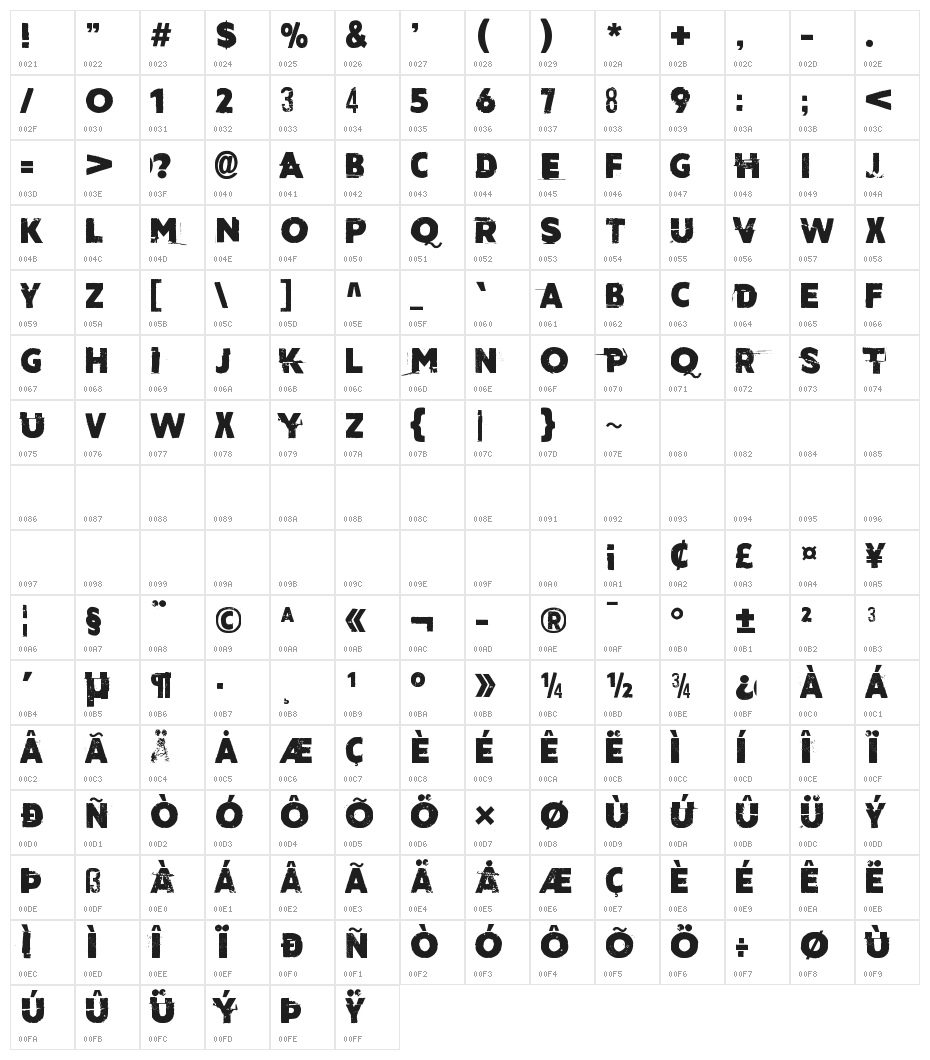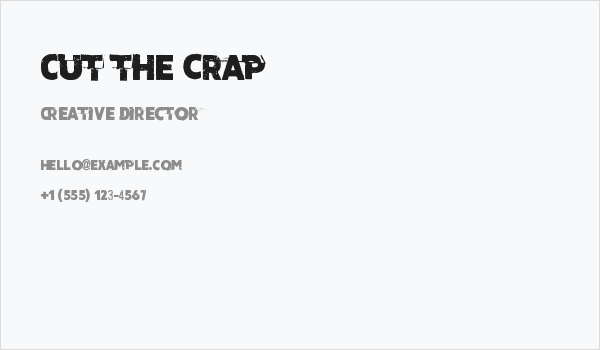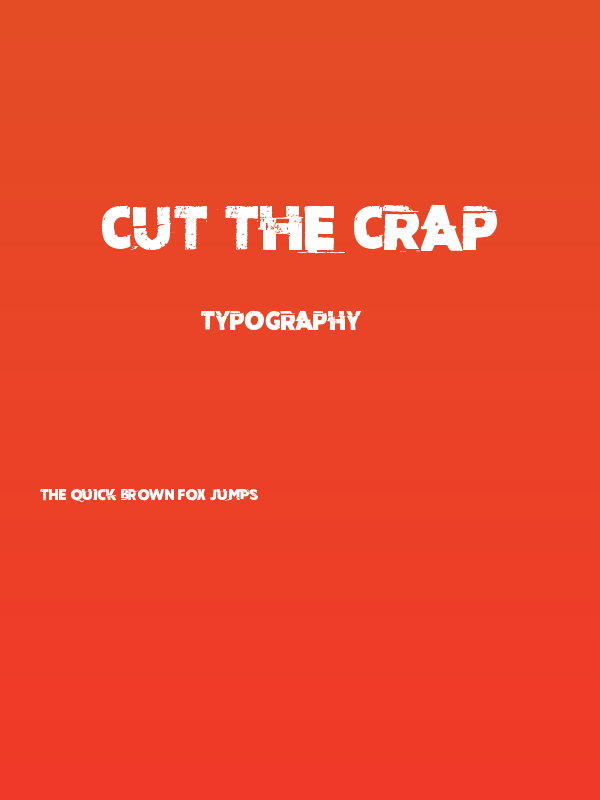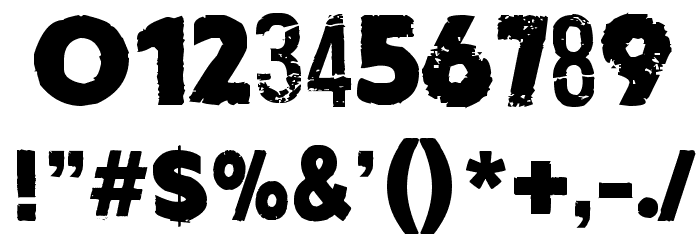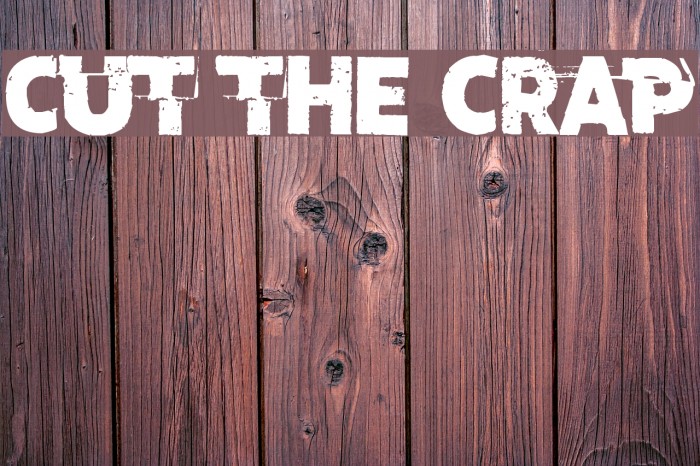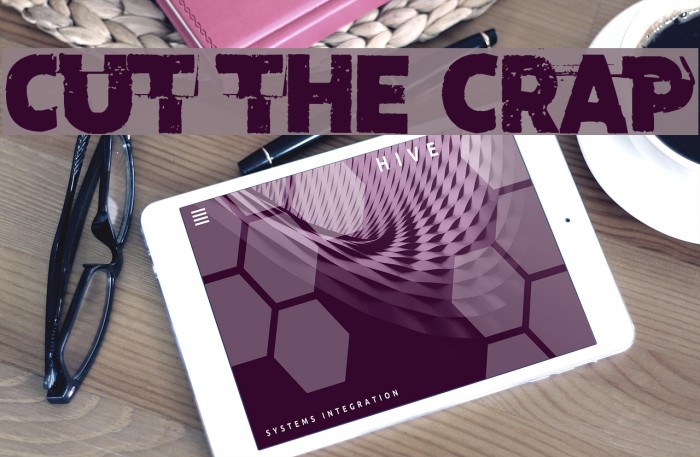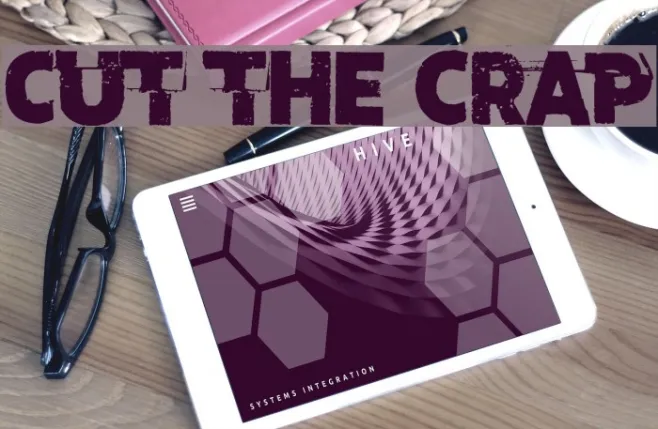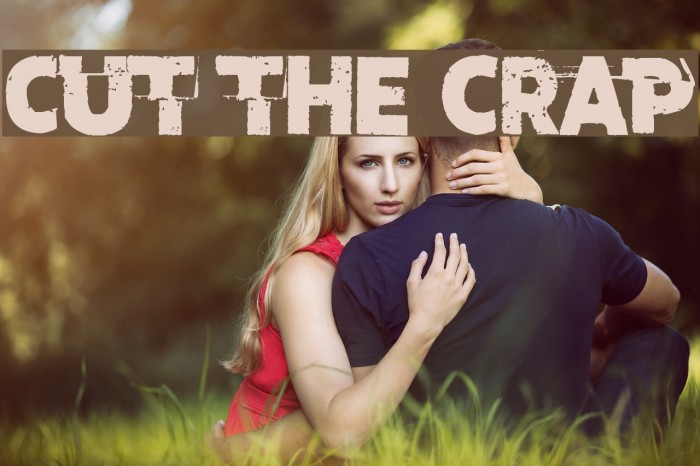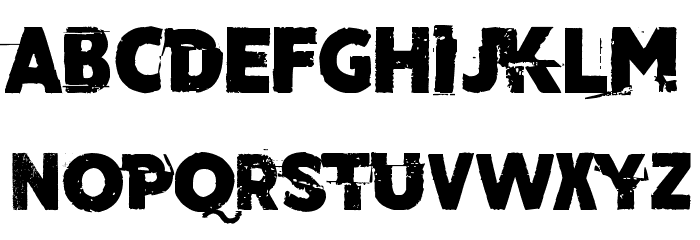
Cut the crap Font
Cut the crap Description
This font features a bold and distressed style, characterized by rough edges and a grunge aesthetic. The uppercase and lowercase letters, as well as numbers and special characters, all exhibit a worn, textured appearance, giving the impression of being weathered or eroded. The design is highly impactful, making it suitable for projects that require a strong visual statement. Its unique, rugged look can add a dynamic and edgy feel to any design, making it ideal for use in posters, album covers, or any creative work that seeks to convey a sense of rebellion or nonconformity.
| Overall Style | Grunge, Edgy |
| Use Case | Headlines, Posters, Album covers |
| Proposed Projects | Ideal for posters, album covers, and creative projects needing an edgy, rebellious look. |